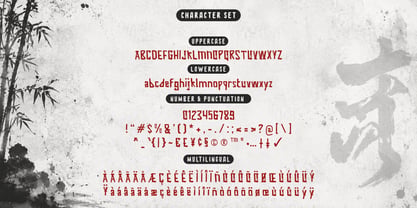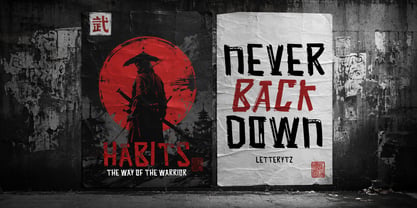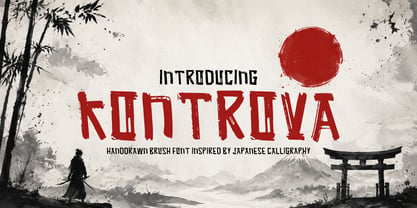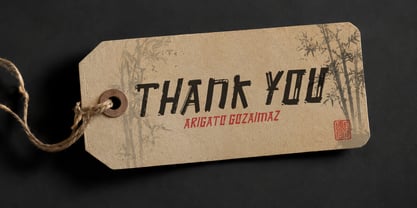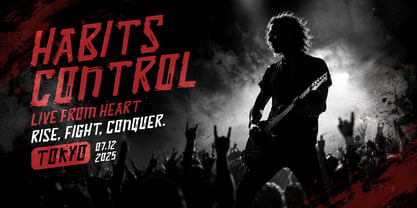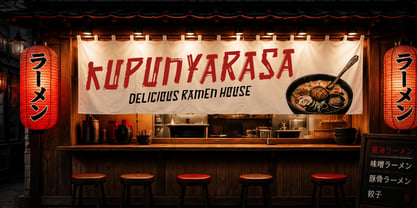
Kontrova
The Kontrova Font Family was designed by Wahyu Eka Prasetya, Dian Angga Marytama and published by Letterytz CalliType. Kontrova contains 2 styles and family package options. More about this family
Kontrova is a bold brush display font inspired by traditional Japanese brush calligraphy and expressive ink strokes. Designed with an authentic handcrafted feel, it combines rough brush textures, strong vertical forms, and dynamic energy to create a striking visual impact. Whether you're designing Japanese-inspired branding, restaurant logos, posters, packaging, apparel, gaming titles, comics, or social media graphics, Kontrova delivers a powerful handcrafted aesthetic that stands out.
Every character is carefully crafted to preserve the natural imperfections of real brush lettering, giving your designs an organic, artistic, and authentic look. With both Regular and Slant styles included, Kontrova offers extra flexibility for creating bold headlines, eye-catching logos, and expressive typography across print and digital projects.
Features
• Uppercase & Lowercase
• Numbers & Punctuation
• Multilingual Support
• Regular & Slant
• Handcrafted Brush Texture
• Japanese-Inspired Brush Design
• Easy to Use
Perfect For
Japanese branding, sushi restaurants, ramen shops, Asian packaging, posters, movie titles, gaming, comics, YouTube thumbnails, book covers, streetwear, apparel, logos, advertising, and bold display typography.